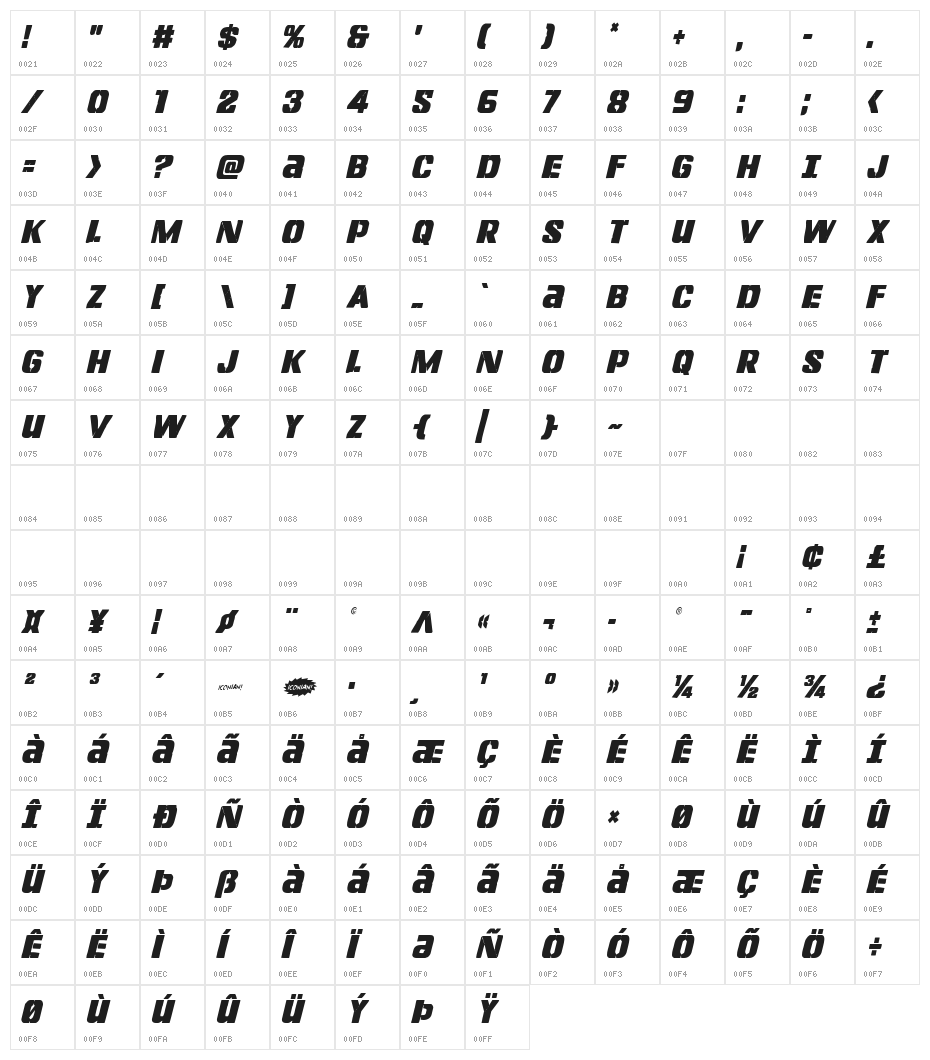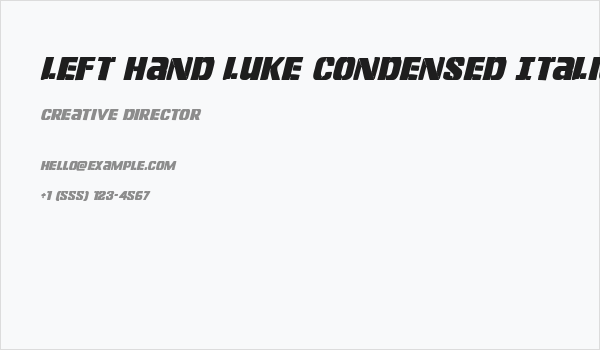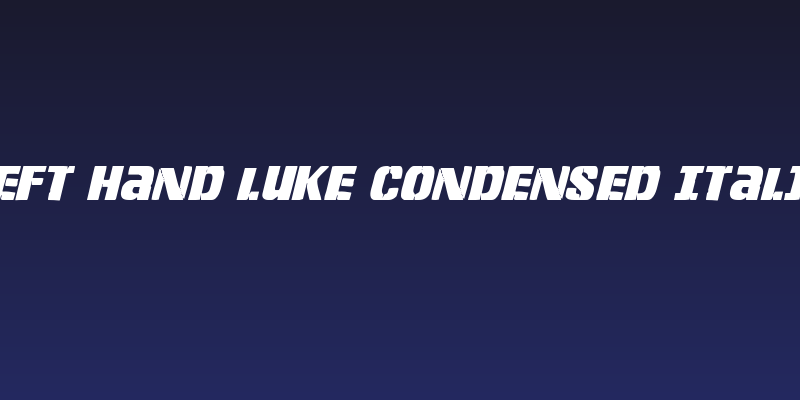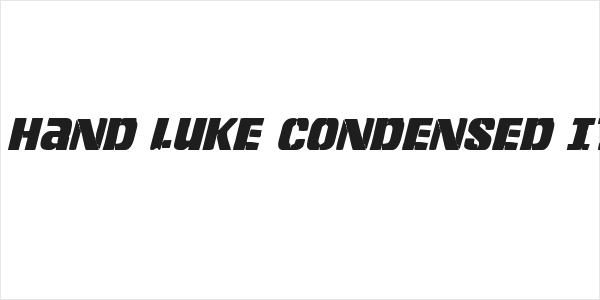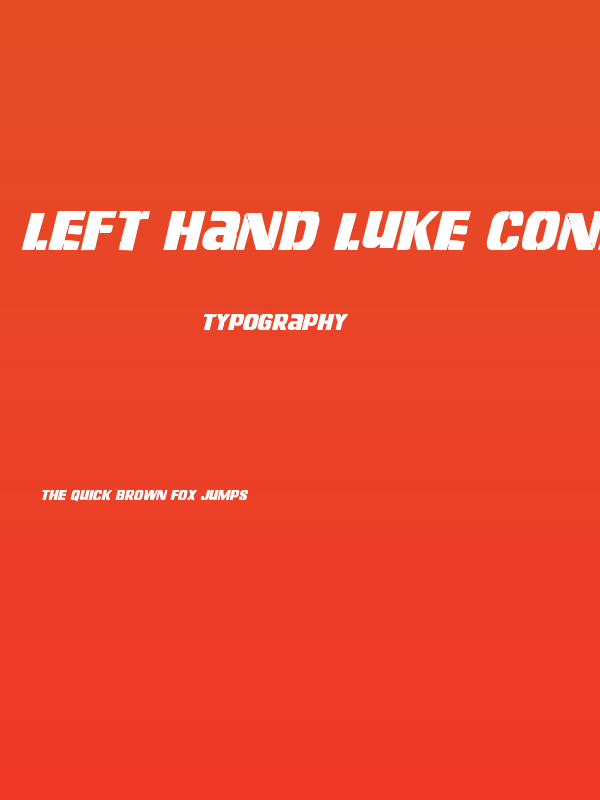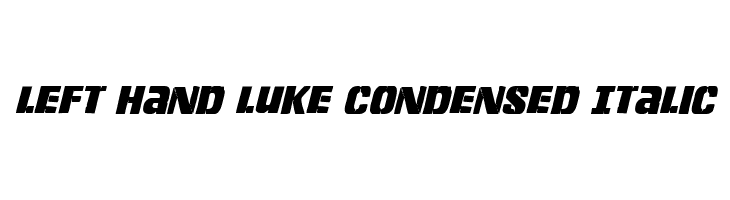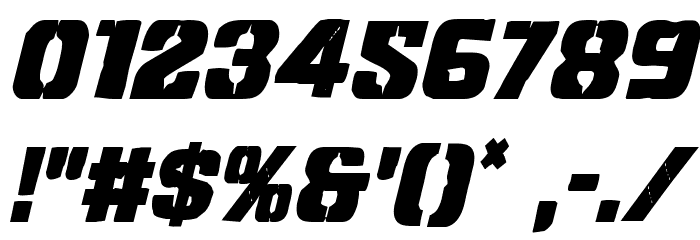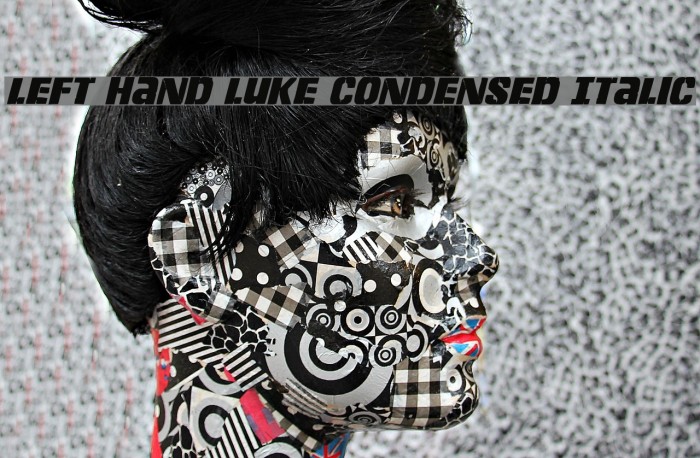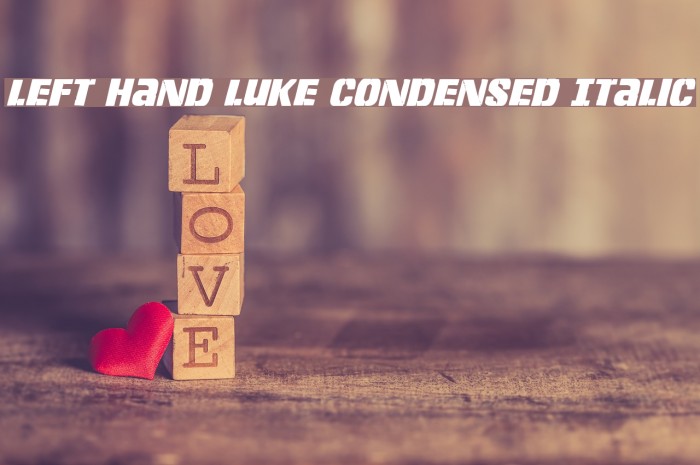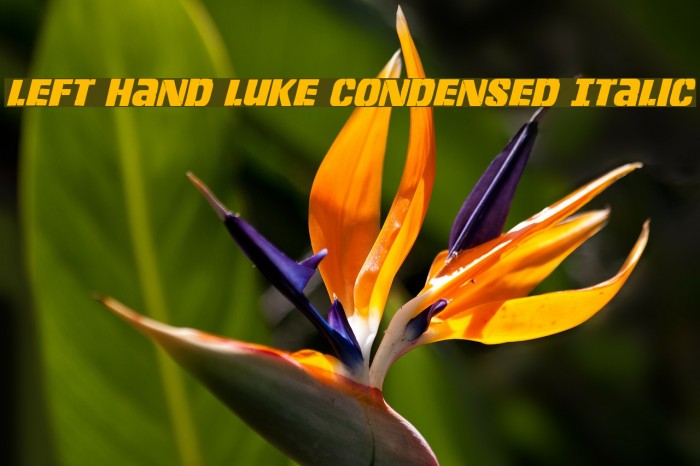
Left Hand Luke Condensed Italic Font
This font features a bold, condensed style with a distinct italic slant, giving it a dynamic and energetic appearance. The characters are tightly spaced, enhancing its compact look. The strokes are thick and consistent, providing a strong visual impact. The font's design is modern and slightly aggressive, making it suitable for attention-grabbing headlines or titles. Its angular cuts and sharp edges contribute to a sense of movement and urgency, ideal for projects that require a bold statement.
| Proposed Projects | Perfect for sports branding, action movie posters, dynamic advertisements, and bold editorial headlines. |